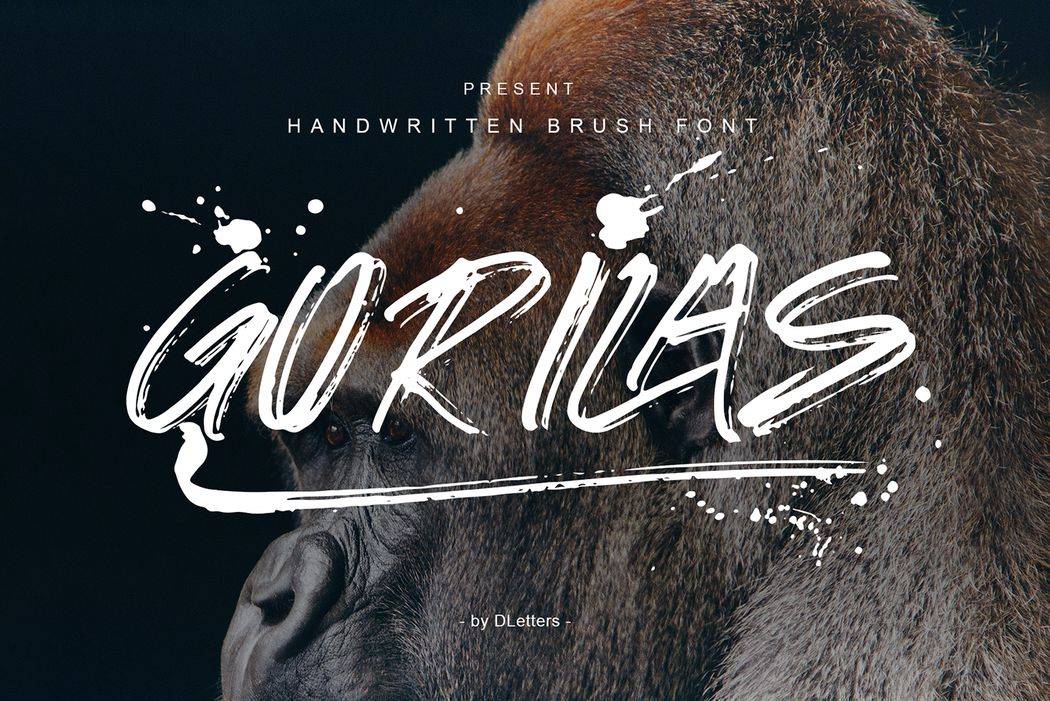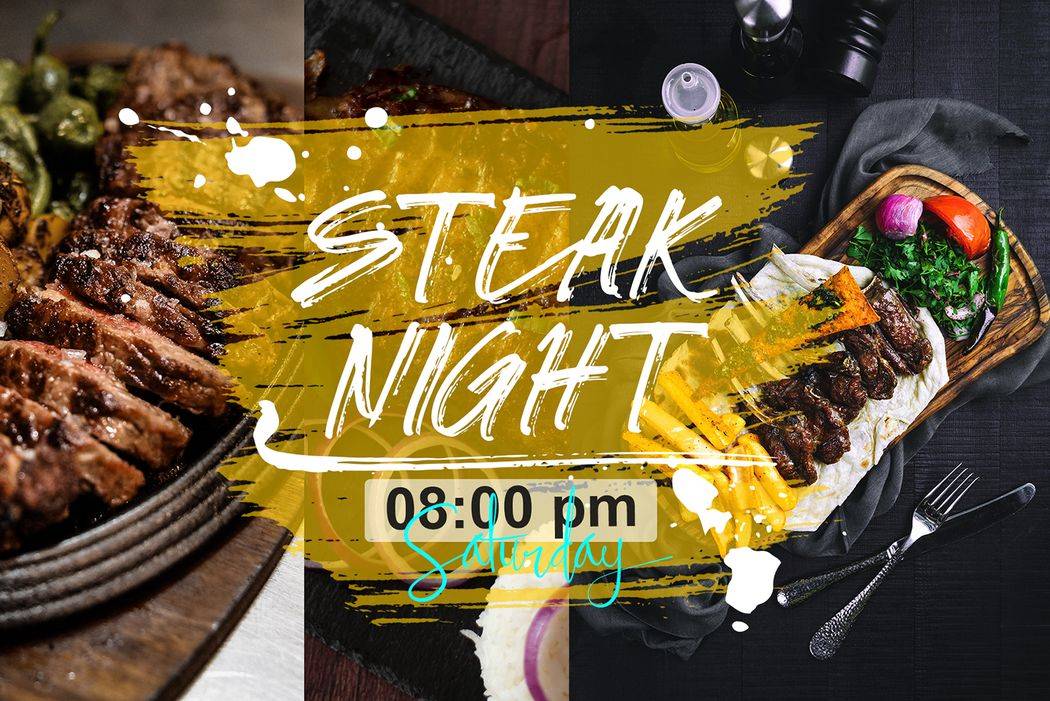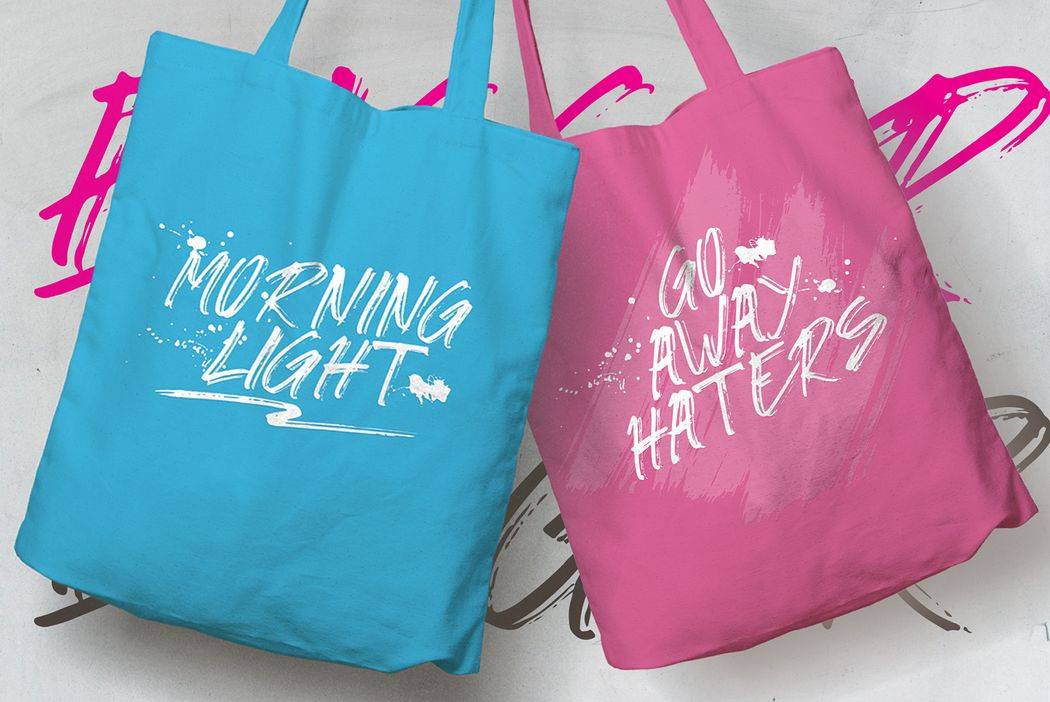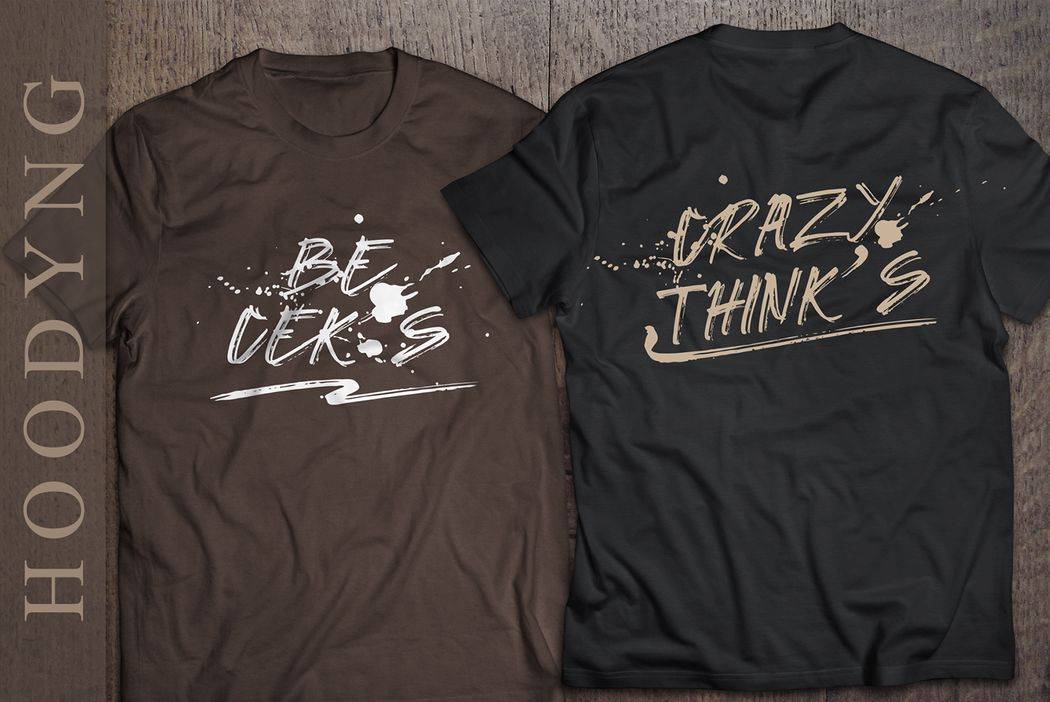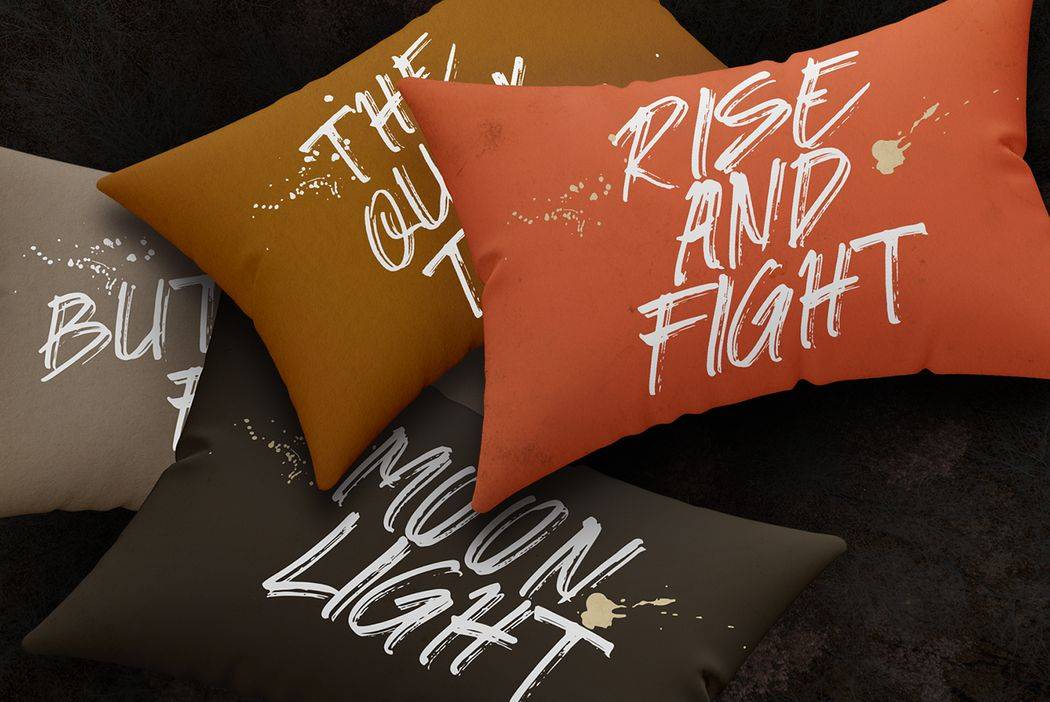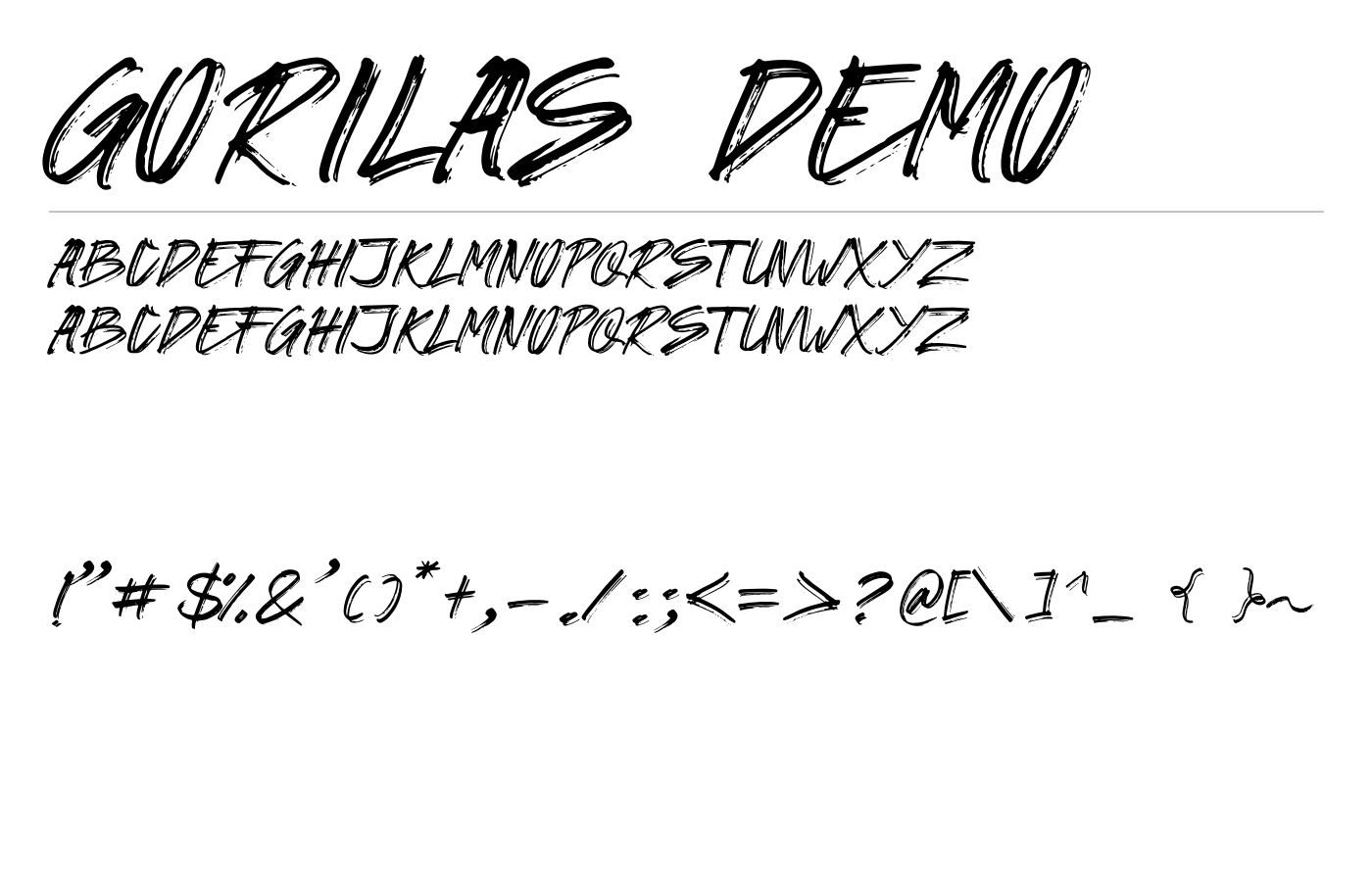
Gorilas Font is a bold, energetic brush script that captures a hand-painted, rough texture with dynamic strokes, giving it a raw and expressive feel. Its tall, slightly condensed letterforms and casual, imperfect edges make it perfect for creative projects, posters, or branding that seeks an edgy, urban, or adventurous vibe. This font works best in headlines or display uses where a striking, spontaneous look is desired.
Gorilas Font
About Gorilas Font